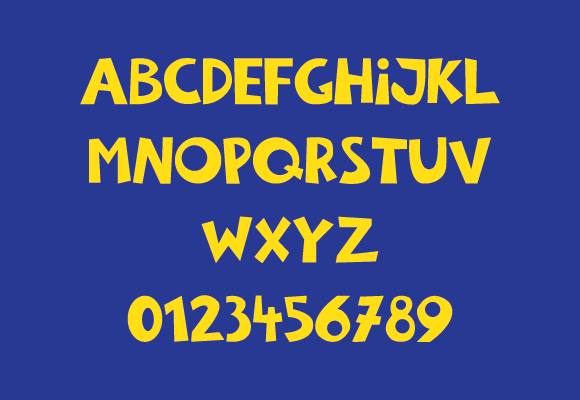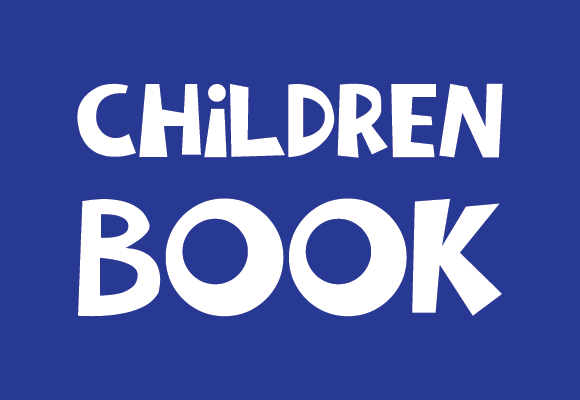
Children Book Font: A Playful Typeface for Young Minds
When it comes to creating engaging and imaginative children’s books, every detail matters. One crucial element that can make or break the overall aesthetic of a children’s book is the font used. A Children Book Font is a typeface designed specifically with a playful and childlike aesthetic in mind. It features a set of whimsical, cheerful characters that are often reminiscent of handwritten letters or doodles made for children.
The Characteristics of a Children Book Font
A typical Children Book Font is designed to evoke a sense of fun, curiosity, and creativity. Some common characteristics of a children book font include:
• Playful letterforms: Children book fonts often feature letters with rounded edges, irregular shapes, and exaggerated features. This gives the text a friendly, approachable feel that’s perfect for young readers.
• Whimsical illustrations: Many children book fonts come with accompanying illustrations or ornaments that add to the overall playfulness of the design.
• Handwritten feel: Children book fonts often mimic the look of handwritten text, with varying line widths and a more organic feel.
• Bright and bold colors: Children book fonts are often used in conjunction with bright, bold colors that appeal to young children.
The Benefits of Using a Children Book Font
Using a Children Book Font in your children’s book design can have numerous benefits, including:
• Establishing a playful tone: A children book font helps set the tone for your story, immediately conveying to young readers that the book is meant to be fun and engaging.
• Captivating young readers: A well-designed children book font can capture the attention of young readers and draw them into the story.
• Enhancing the overall design: A children book font can add visual interest to your book design, making it more engaging and memorable for young readers.
Popular Children Book Fonts for Designers and Crafters
If you’re looking to incorporate a Children Book Font into your design or crafting project, here are some popular options to consider:
• Comic Sans: A classic children book font, Comic Sans is a playful and informal typeface that’s perfect for kids’ books and educational materials.
• Pacifico: This beautiful, handwritten font features a cheerful and uplifting feel that’s perfect for children’s books and craft projects.
• Great Vibes: This fun, script font features a lively and energetic feel that’s perfect for kids’ books and party invitations.
Tips for Using Children Book Fonts in Your Design
Here are some tips for incorporating Children Book Fonts into your design or crafting project:
• Choose a font that fits your theme: Select a font that aligns with the tone and theme of your story or project.
• Experiment with colors and textures: Add visual interest to your design by experimenting with different colors and textures.
• Keep it legible: Make sure your font is easy to read, even for young readers.
In conclusion, a Children Book Font is a powerful design element that can help bring your children’s book or crafting project to life. By choosing a font with a playful and childlike aesthetic, you can establish a fun and engaging tone that will captivate young readers and enhance the overall design of your project. Whether you’re a designer, crafter, or parent, we hope this article has provided you with valuable insights and inspiration for using children book fonts in your creative projects.